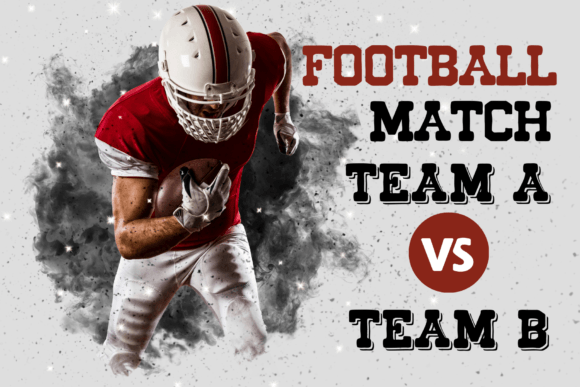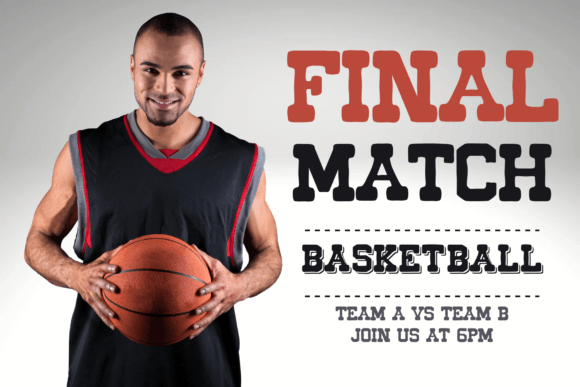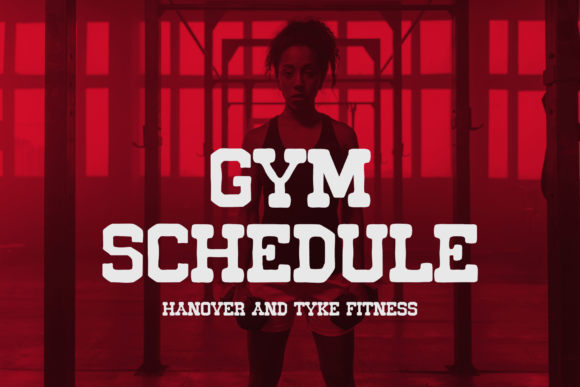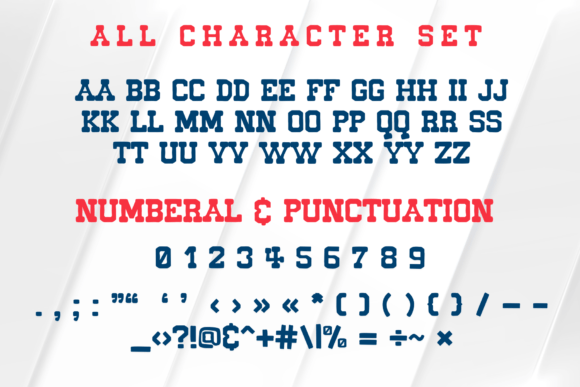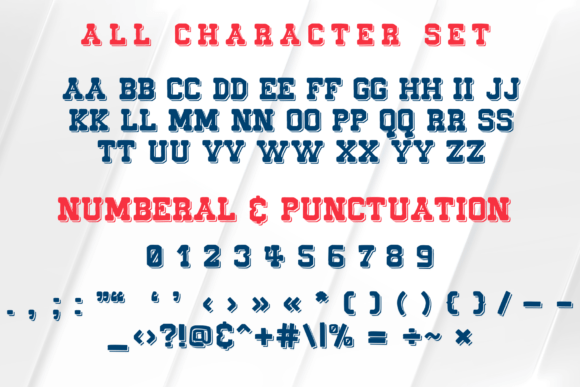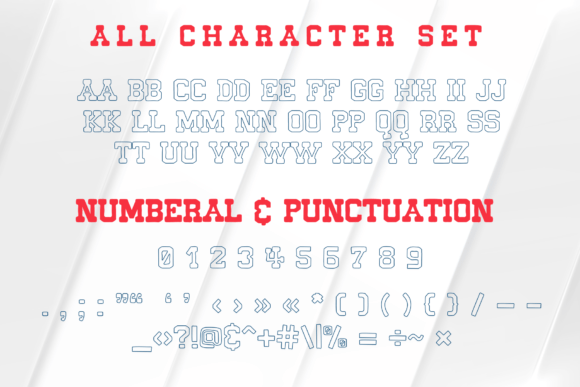
The Perfect Swing: Introducing Baseball College Font
You’ve spent hours brainstorming ideas, sketching out designs, and tweaking colors until you finally land on the perfect concept. The excitement is palpable as you bring your vision to life. But, what truly sets your design apart and makes it unforgettable? The answer lies in the typography – specifically, the Baseball College Font.
This charming font is more than just a pretty face; it’s a perfect blend of playfulness and authenticity that captures the essence of any project. Whether you’re creating a blog post, logo, or invitation, the Baseball College Font is the ultimate addition to elevate your design game. Its versatility and charm make it a valuable asset for designers, allowing you to infuse your projects with a unique touch that resonates with your audience.
Baseball College Font Key Features
- Size: The font family includes multiple weights, ranging from Thin to Extra Bold, with 6 different weights in total, offering flexibility for various design applications.
- Unique Characteristics: Baseball College Font features a unique blend of modern and vintage elements, with a distinctive flair that evokes the nostalgia of classic baseball typography.
- Optical Kerning: The font includes advanced optical kerning, ensuring that letters and letter combinations are spaced correctly, even at small font sizes, for a polished and professional look.
Baseball College Font Review
When I first saw Baseball College Font, I was immediately drawn to its unique, sporty vibe ✨. The font is inspired by classic baseball stadium signs and it shows. It’s perfect for any project that needs a touch of nostalgia and Americana.
The font has a great range of weights and styles, making it suitable for various design applications. The ligatures and swashes add a nice touch of elegance ✨. The font also includes a range of numbers and punctuation marks, which is a big plus.
One of the main limitations of Baseball College Font is its limited language support ⚠️. It’s mainly designed for English language use and may not be suitable for multilingual projects. Additionally, the font may not be the best choice for fine typography or small text sizes, as it can become quite rough.
Overall, I think Baseball College Font is a great choice for designers who want to add a sporty, nostalgic touch to their projects. While it may have some limitations, the font’s unique style and range of weights make it a great addition to any design library.
- Unique, sporty vibe ✨
- Great range of weights and styles
- Ligatures and swashes add elegance ✨
- Limited language support ⚠️
- May not be suitable for fine typography or small text sizes
The Baseball College Font is ideal for creating sports-themed designs, such as baseball jerseys, scoreboards, or sports websites. It’s also great for creating vintage or retro-style designs. To get the most out of the font, experiment with different font sizes, colors, and styles to create a unique look.
Alternatives to Baseball College Font
Rockwell Font
Rockwell Font is a serif typeface designed in 1934. It is known for its sturdy and strong appearance, making it suitable for use in titles, headings, and body text in various designs. Rockwell Font is a great alternative to Baseball College Font as it has a similar classic and timeless feel. However, Rockwell Font is more versatile and can be used in a wider range of designs, from formal to informal.